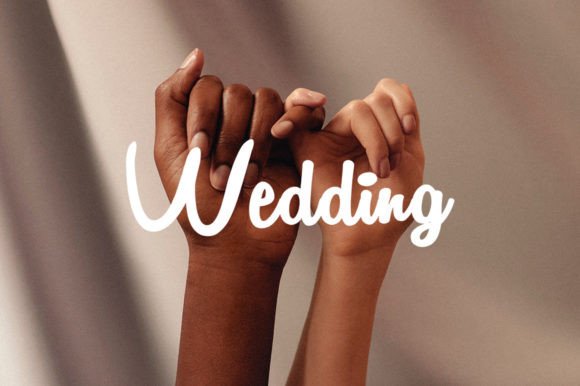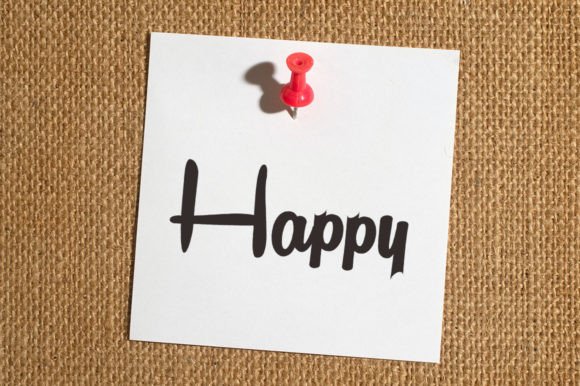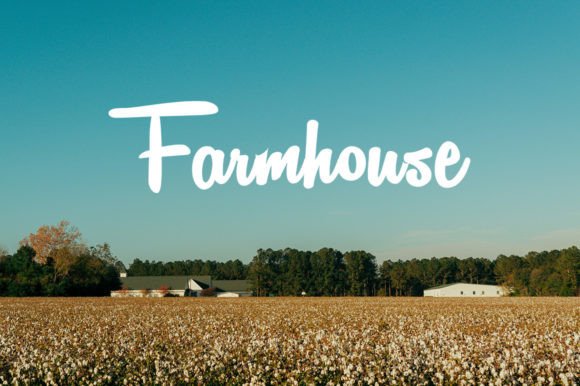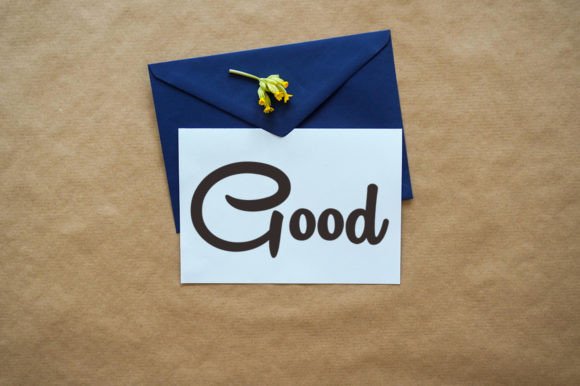
Simple Font
Simple is a fun and friendly handwritten font made to bring an approachable and joyful touch to any project. Its casual look and easy readability make it a great choice for designers, crafters, and anyone who wants their work to feel warm and personal.
From playful social media graphics to heartfelt greeting cards, Simple adapts easily to whatever you’re working on. It is the kind of font you can rely on when you want something that feels effortless but still polished.
Playful and Approachable
The best thing about Simple Font is its friendly personality. Every letter feels like it was drawn by hand, giving your designs a unique, human touch. Unlike stiff or overly decorative fonts, Simple keeps things easygoing and clean.
Its rounded curves and balanced shapes make it both legible and lively. It’s perfect for projects where you want to create a welcoming vibe that feels honest and real.
Ideal for Many Design Projects
Simple Font is very versatile. Here are some of the most popular ways people use it:
• Greeting Cards: Make birthday, thank-you, or holiday cards feel heartfelt and personal.
• Craft Projects: Perfect for labels, DIY gifts, and handmade decorations.
• Social Media: Add a friendly touch to Instagram quotes, Pinterest pins, or Facebook posts.
• Presentations: Keep slides professional but approachable.
• Posters and Flyers: Attract attention without feeling too formal.
• Logos: Build a brand identity that feels accessible and down-to-earth.
No matter where you use it, Simple Font will help your words shine.
Tips for Beautiful Results
To get the most out of Simple Font, try these quick ideas:
• Use Soft Colors: Pastel backgrounds enhance its friendly feel.
• Mix with Sans Serifs: Pair Simple with a clean sans serif font for modern contrast.
• Adjust Spacing: Tweak letter spacing to improve readability.
• Keep It Minimal: Let the font’s personality shine by avoiding clutter.
• Try All Caps: For headings, all caps can look bold yet still playful.
These simple adjustments can help you create polished designs every time.
Why Designers Love Simple
Designers choose Simple because it offers the best of both worlds: a casual style that still feels professional. It’s great for brands that want to look relatable without losing credibility.
Whether you’re a blogger, small business owner, or hobbyist, Simple makes it easy to create designs that feel natural and inviting.
Add Warmth to Your Work
If you’re ready to bring a friendly, hand-crafted touch to your next project, Simple Font is a must-have in your library. It’s easy to use, versatile, and full of personality.